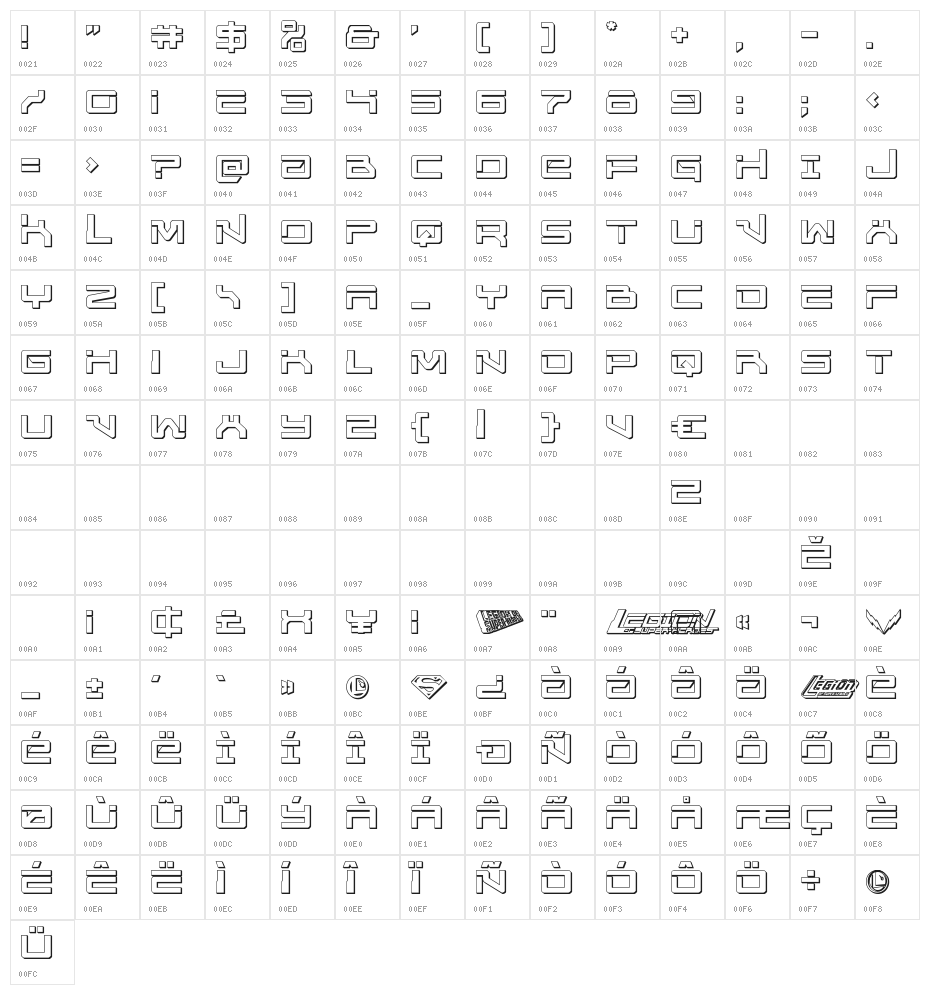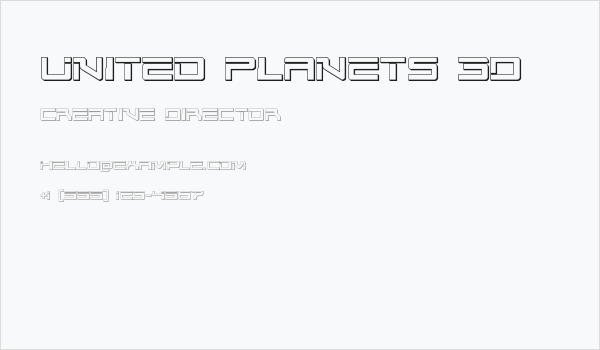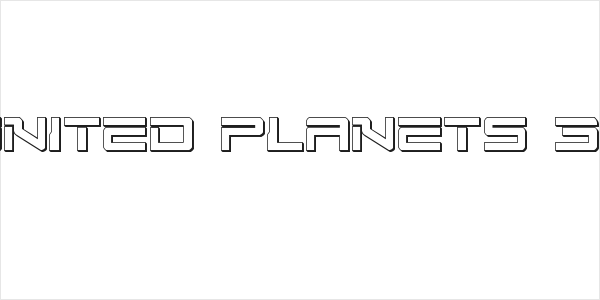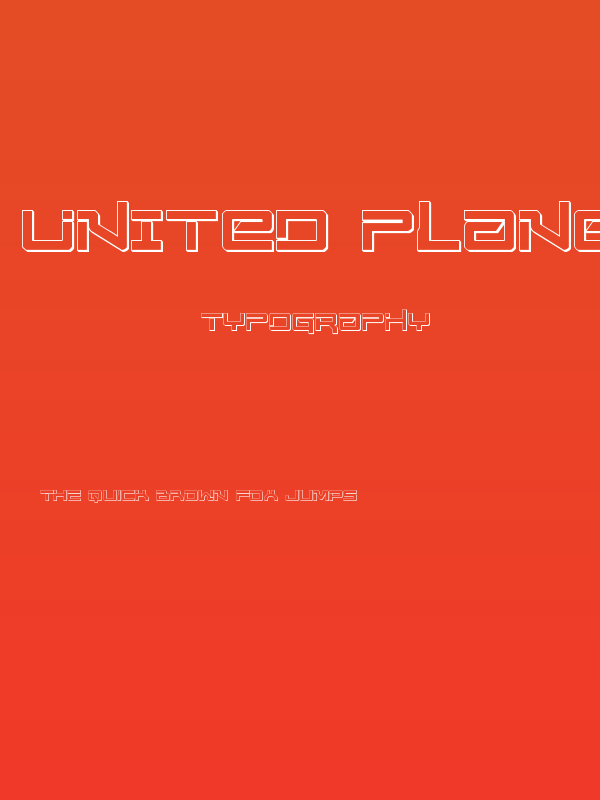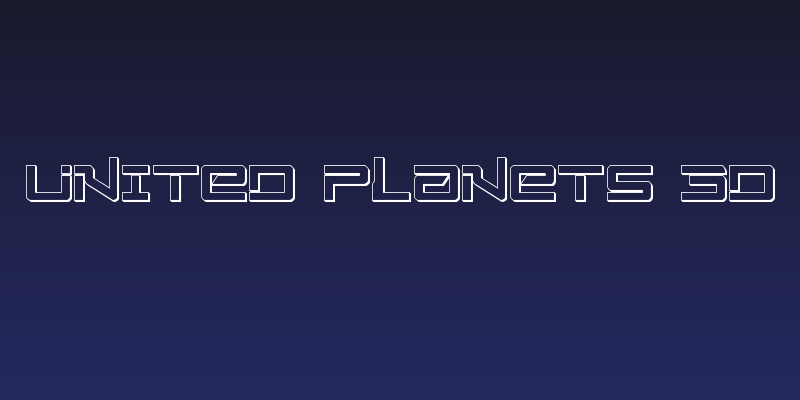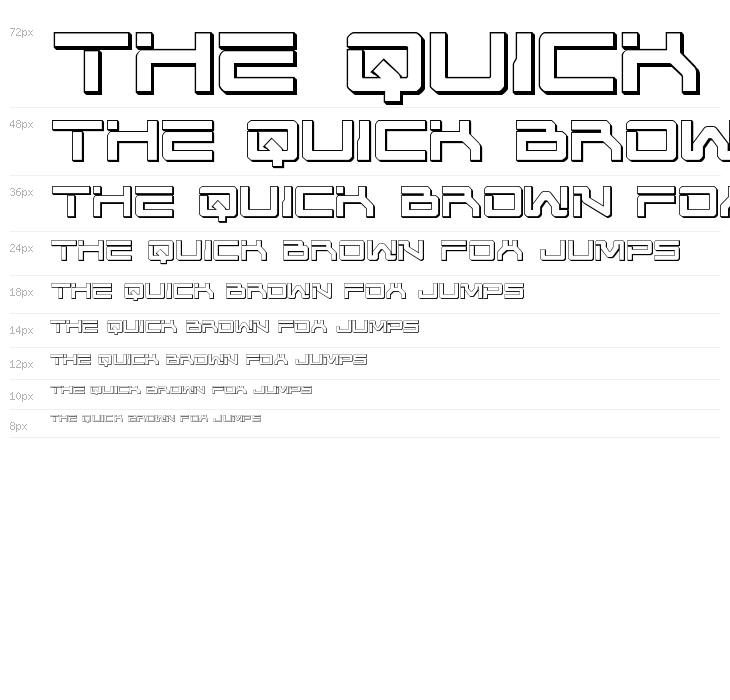
United Planets 3D Font
United Planets 3D Description
This font features a futuristic, geometric design with a three-dimensional effect. Each character is outlined with a bold, uniform stroke, creating a sense of depth and structure. The letters are angular and sharp, with a consistent height and width, giving the font a cohesive and modern appearance. The numerals and special characters follow the same design principles, ensuring visual harmony across all elements. This font is ideal for projects that require a contemporary and tech-inspired aesthetic.
Proposed ProjectsIdeal for sci-fi themed designs, tech branding, video game titles, and futuristic posters.